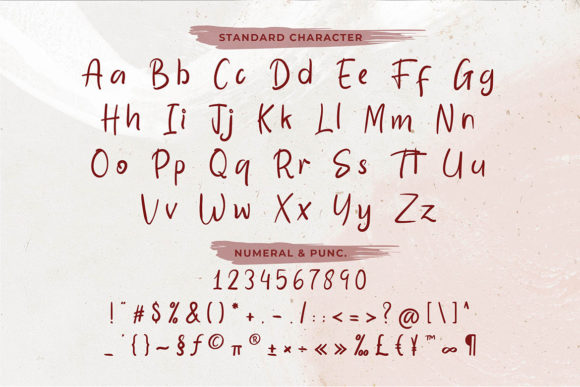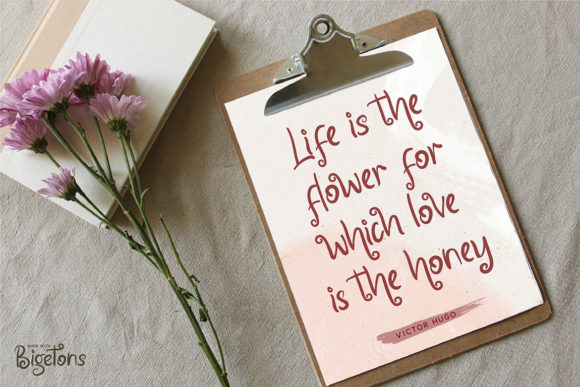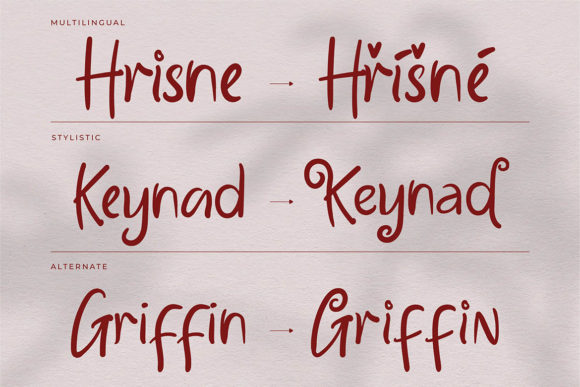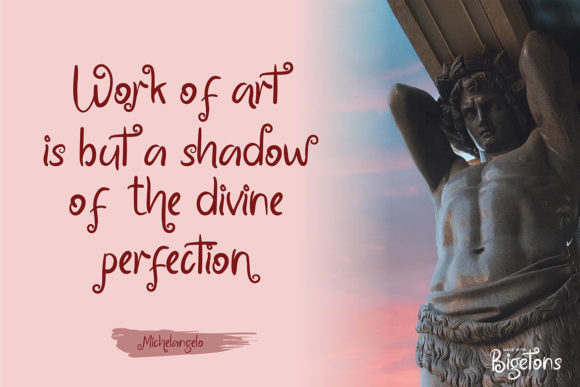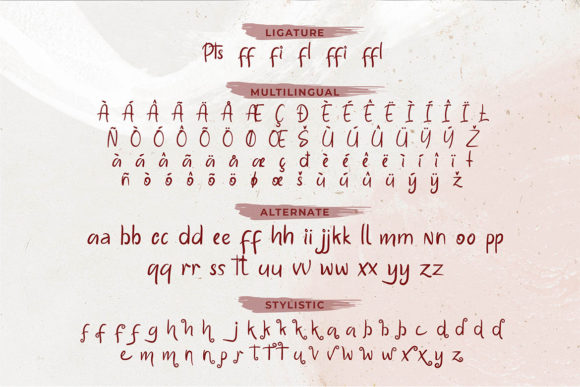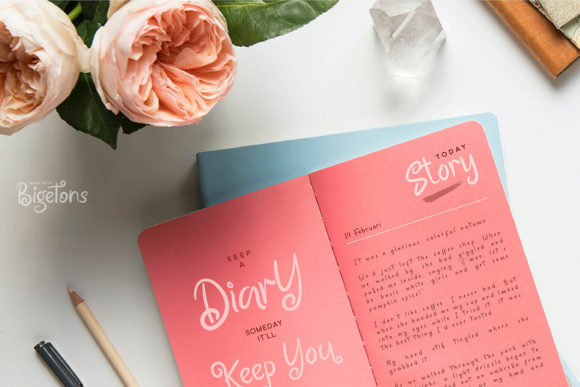
Introducing Bigetons Font: The Bold and Fun Style for Your Creative Projects
In the world of typography, fonts play a crucial role in conveying the tone and personality of a brand, product, or creative project. If you’re a designer, crafter, or simply someone who loves to experiment with typography, you’re in for a treat. Say hello to Bigetons Font, a bold and fun style font that’s perfect for a wide range of applications.
What is Bigetons Font?
Bigetons Font is a unique and eye-catching typeface that’s designed to make a statement. As its name suggests, Bigetons is born from a bold and fun style, making it an excellent choice for creative projects that require a touch of personality. Whether you’re working on a logo design, social media graphics, movie titles, book titles, or simply want to add some flair to your text, Bigetons Font is an excellent option.
Key Features of Bigetons Font
So, what makes Bigetons Font so special? Here are some of its key features:
- Bold and Fun Style: Bigetons Font boasts a bold and fun style that’s sure to grab attention. Its unique design makes it perfect for creative projects that require a touch of personality.
- Versatile: Bigetons Font is incredibly versatile and can be used for a wide range of applications, from logo design to social media graphics, movie titles, book titles, and more.
- Easy to Read: Despite its bold style, Bigetons Font is easy to read, making it perfect for both short and long text passages.
- Pairs Well with Sans or Serif: Bigetons Font pairs well with both sans and serif fonts, making it an excellent choice for secondary text font.
Use Cases for Bigetons Font
So, what can you use Bigetons Font for? The possibilities are endless! Here are some use cases to get you started:
- Logo Design: Bigetons Font is perfect for logo design, especially for brands that want to make a bold statement.
- Social Media Graphics: Use Bigetons Font to create eye-catching social media graphics that are sure to grab attention.
- Movie Titles: Bigetons Font is perfect for movie titles, adding a touch of drama and excitement to your film’s title sequence.
- Book Titles: Use Bigetons Font to create eye-catching book titles that will make your book stand out.
- Short and Long Text Passages: Bigetons Font is easy to read, making it perfect for both short and long text passages.
Why Choose Bigetons Font?
With so many fonts available, why choose Bigetons Font? Here are just a few reasons:
- Unique Design: Bigetons Font has a unique design that’s sure to make your creative project stand out.
- High-Quality: Bigetons Font is a high-quality font that’s designed to deliver exceptional results.
In conclusion, Bigetons Font is an excellent choice for designers, crafters, and anyone looking to add a touch of personality to their creative projects. With its bold and fun style, versatility, and ease of use, Bigetons Font is perfect for a wide range of applications. Whether you’re working on a logo design, social media graphics, movie titles, book titles, or simply want to add some flair to your text, Bigetons Font is an excellent option. So why wait? Give Bigetons Font a try today and see the difference it can make!